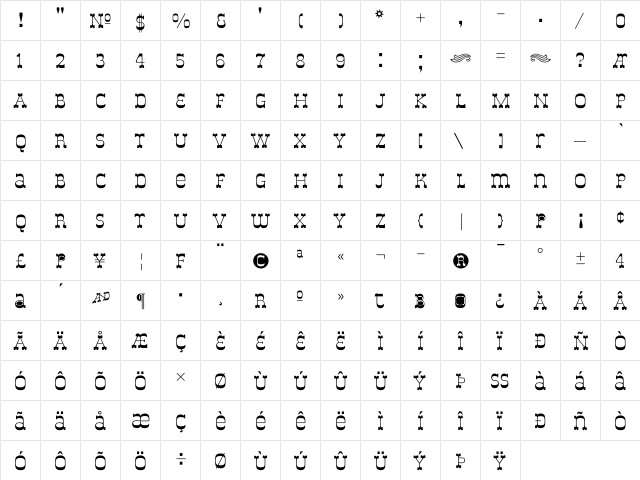
DeLouisville Regular
Design Context for DeLouisville Typeface
DeLouisville is a composed and adaptable typeface that performs quietly and consistently across a wide range of design contexts.